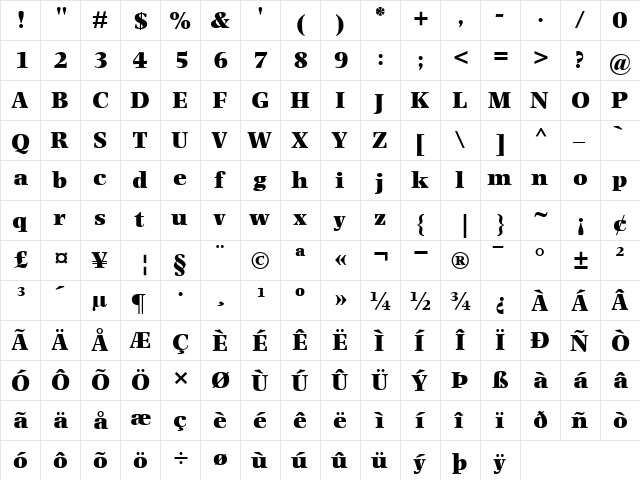
PhotinaMT-UltraBold Ultra Bold Font Preview
PhotinaMT-UltraBold Ultra Bold
PhotinaMT-UltraBold Ultra Bold Font Details
Design Context for PhotinaMT-UltraBold Typeface
PhotinaMT-UltraBold is a composed and adaptable typeface that performs quietly and consistently across a wide range of design contexts. The heavy weight commands attention and anchors typographic hierarchies.